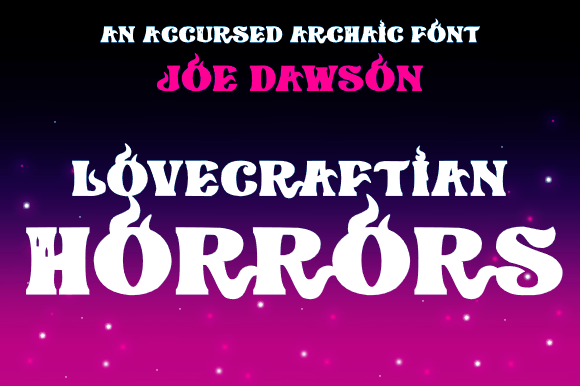
Unleash the cosmic horror and captivate your audience with the 'Lovecraftian Horrors' font, a masterpiece of digital artistry from the mind of Joe Dawson. This display font is a gateway to the eerie allure of the unknown, effortlessly invoking the unsettling essence of gothic tales. With its intricate details and otherworldly charm, 'Lovecraftian Horrors' will cast a spellbinding aura over your designs, leaving an indelible mark on your audience.
Immerse yourself in the depths of madness and let your imagination run wild as you explore the possibilities of 'Lovecraftian Horrors.' Its dark undertones and menacing glyphs make it the perfect choice for conjuring haunting atmospheres in book covers, movie posters, or digital designs. This font will transport you to a realm of shadows, whispers, and ancient secrets, enabling you to weave tales that send shivers down their spine.
'Lovecraftian Horrors' is more than just a font; it's an experience. It's a journey into the deepest corners of the human psyche, where fear and fascination collide. Each letterform is a carefully crafted masterpiece, imbued with the essence of cosmic horror and the haunting beauty of the unknown. As you type, you'll feel the words come alive, whispering tales of forgotten civilizations and unspeakable terrors.
Don't let your designs remain mundane. Embrace the power of 'Lovecraftian Horrors' and unleash the full potential of your creativity. Let your imagination soar as you craft visuals that evoke a sense of awe and unease, leaving your audience captivated by the depths of your artistic vision.